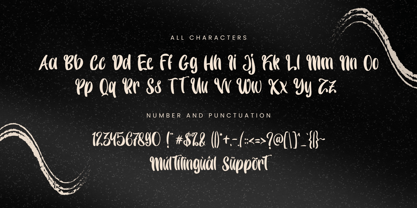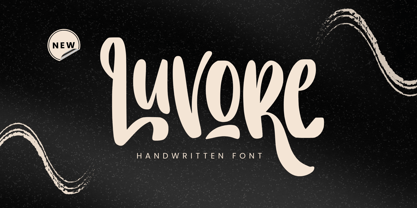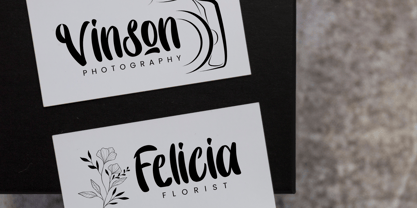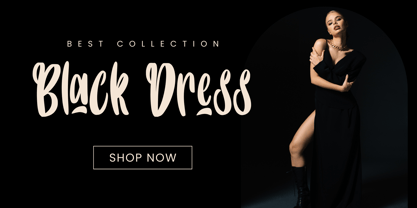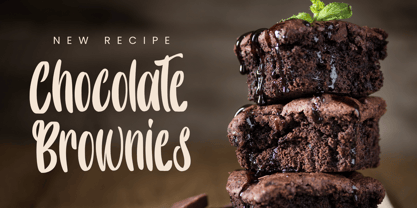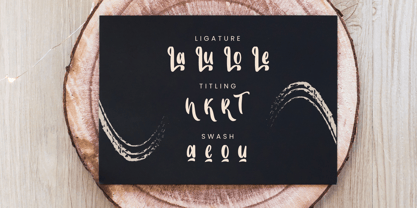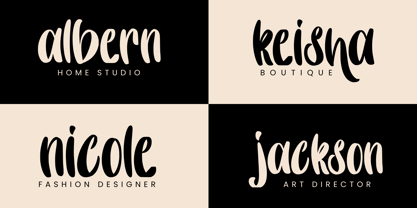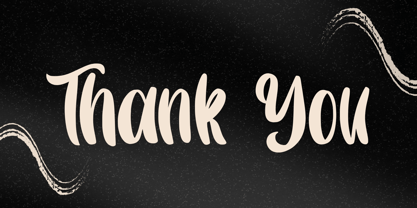
Luvore
by Sakha Design
The Luvore Font Family was designed by Alif Ryan Zulfikar and published by Sakha Design. Luvore contains 2 styles and family package options. More about this family
Luvore is a handwritten font with graceful strokes and a natural flow. Ideal for invitations, greeting cards, and branding, its delicate yet stylish design brings a touch of warmth and elegance to creative projects.